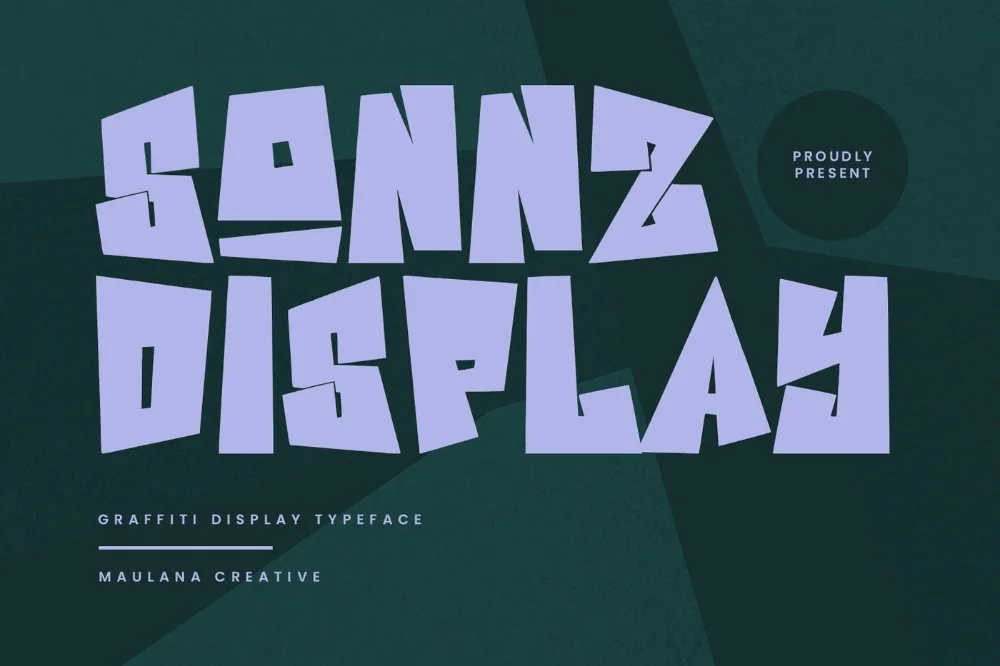
Wall Display Graffiti Font
Artwork by Sonnz Display Graffiti, the original creator of this set.
Among the graffiti display alphabet options in this library, this alphabet is the one worth trying first. Mural-scale letters with the proportions of a full painted piece. Designed to be seen from a distance.
Stems are wide, counters are open, and the outline stays clean without added texture, so the shapes hold up when blown up to metres across. Small sizes waste its detail.
Best for wall art mockups, exhibition graphics, backdrop design, and oversized poster prints.